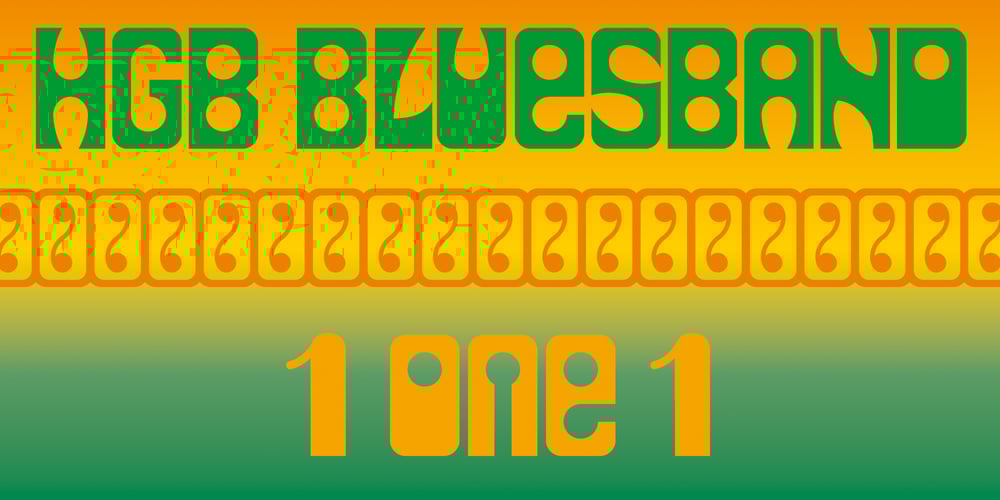
HGB Bluesband One Font Family was designed by Hellmut G. Bomm and published by HGB fonts. HGB Bluesband One contains 1 styles and family package options. The roots of this font go back to 1967. A book title in trendy letters was created in a completely ingenuous way as a film prop for a Super 8 fun film. I drew the letters with felt-tip pen and poster paint without thinking too much about it. It wasn’t until a good 50 years later that I realized, this was a first awkward typeface draft. The flower power vibe was captured here subconsciously. In 2019 I completed the few glyphs and created variants that I would not have thought of at the time.